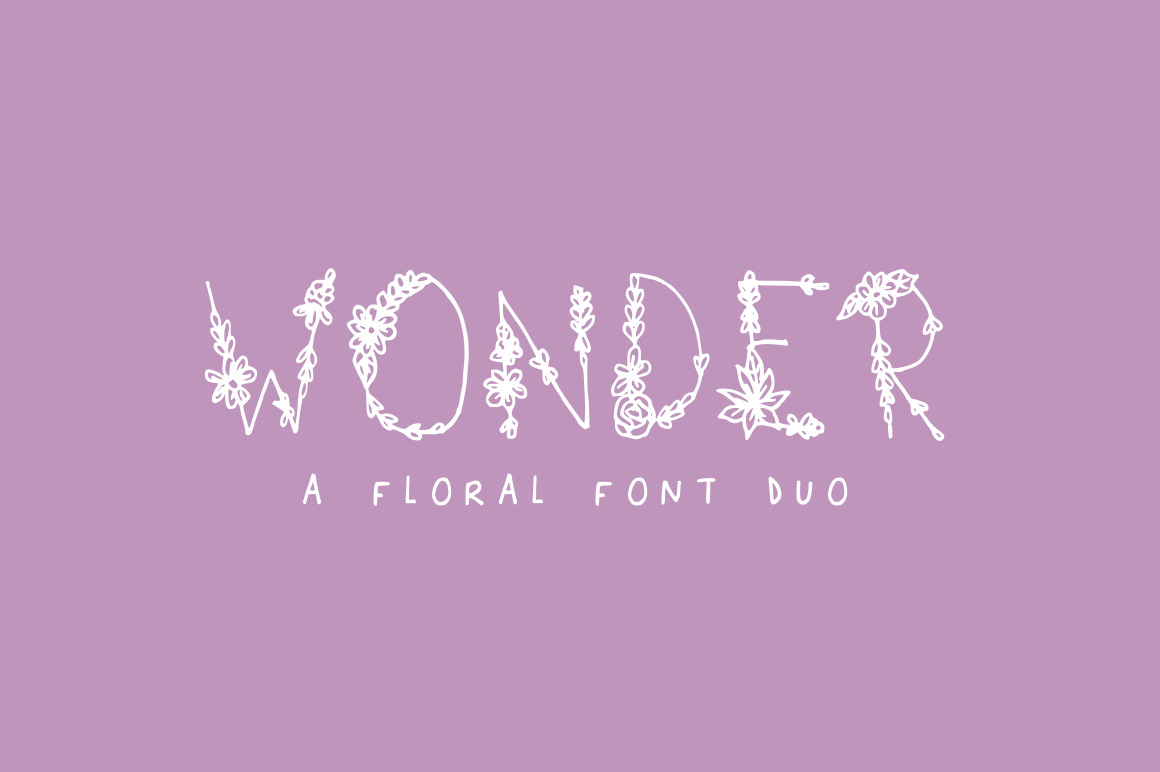
Wonder Floral Font
Wonder is a wondrously floral font that adds a little botanical to your designs. Absolutely dreamy when used for wedding invitations! :) Enjoy!